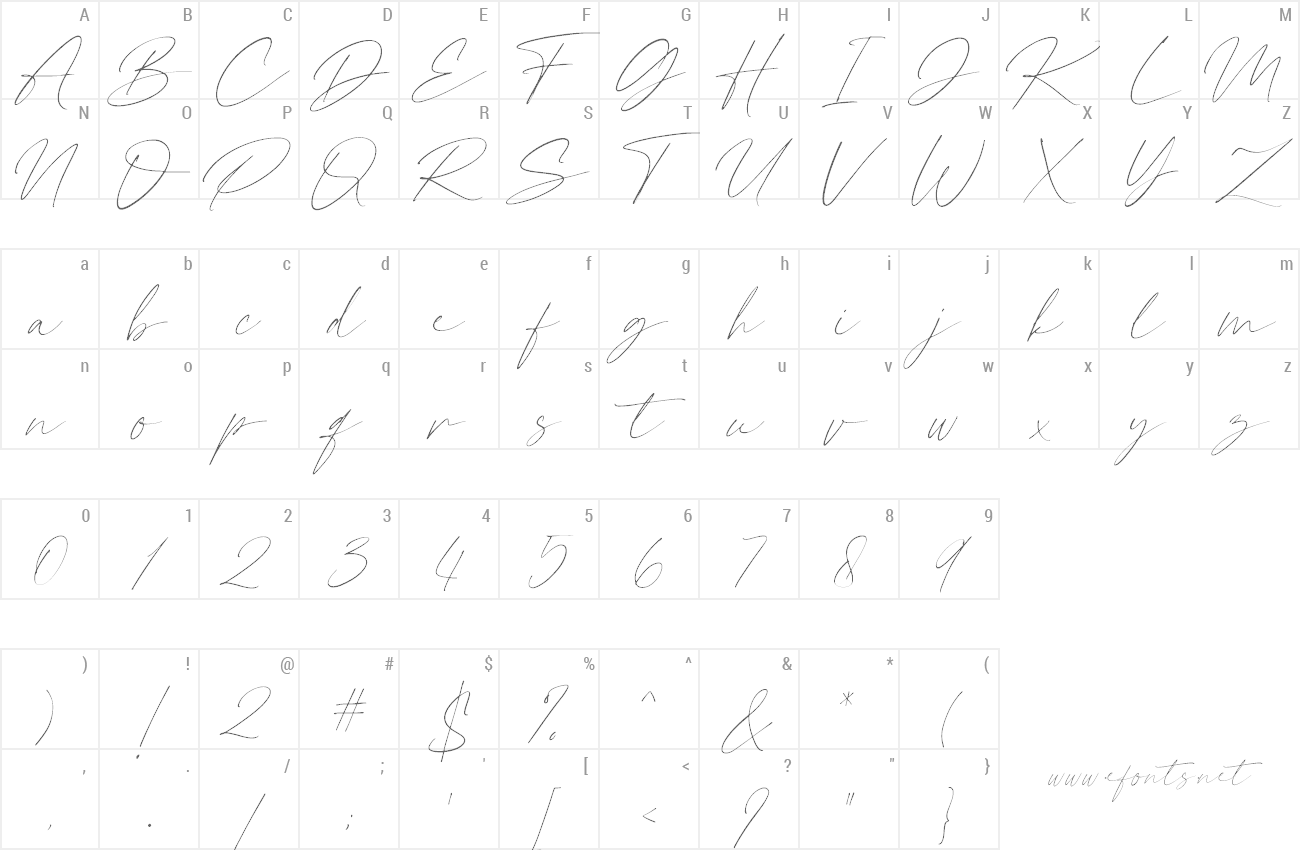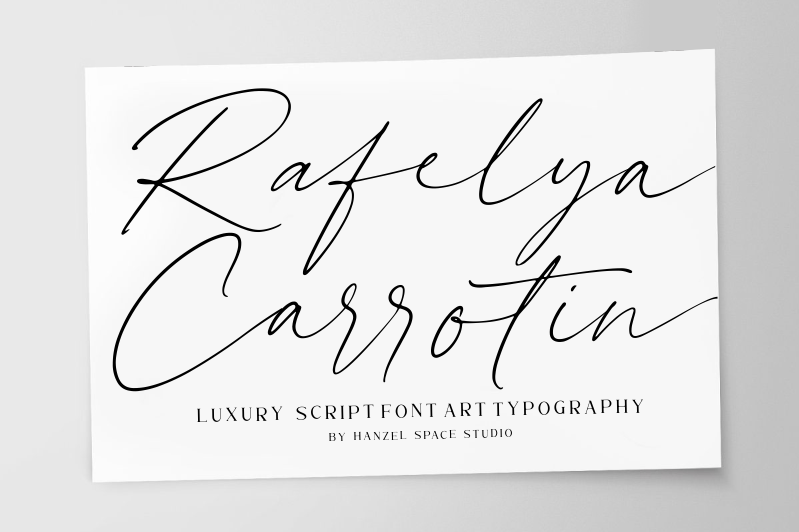
Preview and download Rafelya Carrotin Font. Created by Hanief Farandi in Script Handwritten styles with Free for personal use license.
Rafelya Carrotin. Made from natural pen. it will make your design project more beautiful. The font is suitable for any design like branding, fashion, print template, quotes, wedding and etc. By installing or using this font, you are agree to the Product Usage Agreement: - This font is already FULL VERSION and ONLY for PERSONAL USE. NO COMMERCIAL USE ALLOWED! - Here is the link to purchase COMMERCIAL LICENSE: =========================================================== https://hanzelspace.com/product/rafelya-carrotin/ =========================================================== ATTENTION : WARNING!!! PENGGUNAAN FONT UNTUK KOMERSIL TANPA MEMBELI LISENSI RESMI DARI hanzelspace.com MAKA DIKENAKAN BIAYA PEMBELIAN LISENSI MINIMAL 5X DARI HARGA LISENSI !!!! IMPORTANT NOTES FOR Rafelya Carrotin FONT USERS: USE OF FONT FOR COMMERCIAL WITHOUT BUYING OFFICIAL LICENSE FROM hanzelspace.com THEN PURCHASE FEES FOR PURCHASE LICENSE OF 5X MINIMUM LICENSE FROM THE LICENSE !!!! |